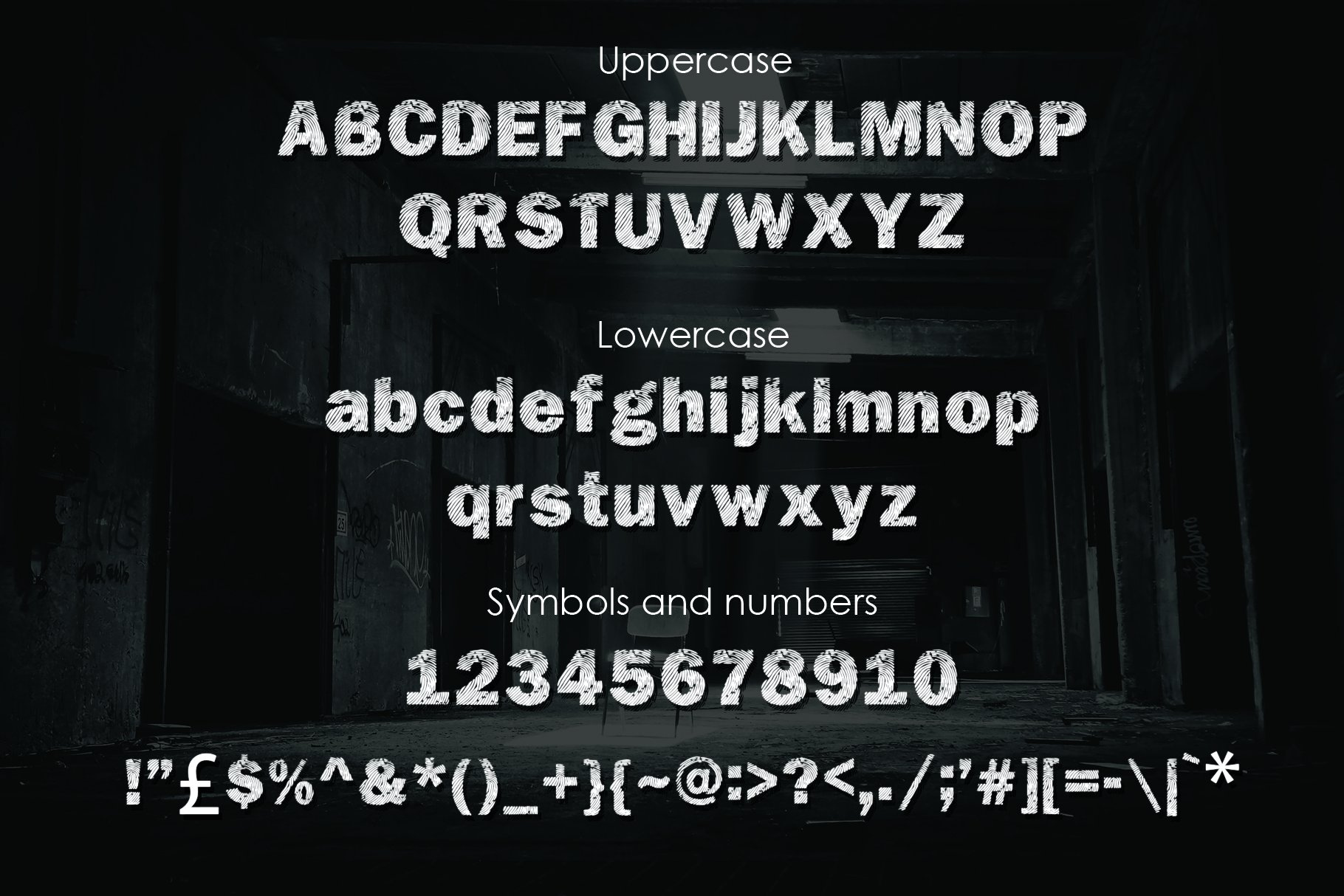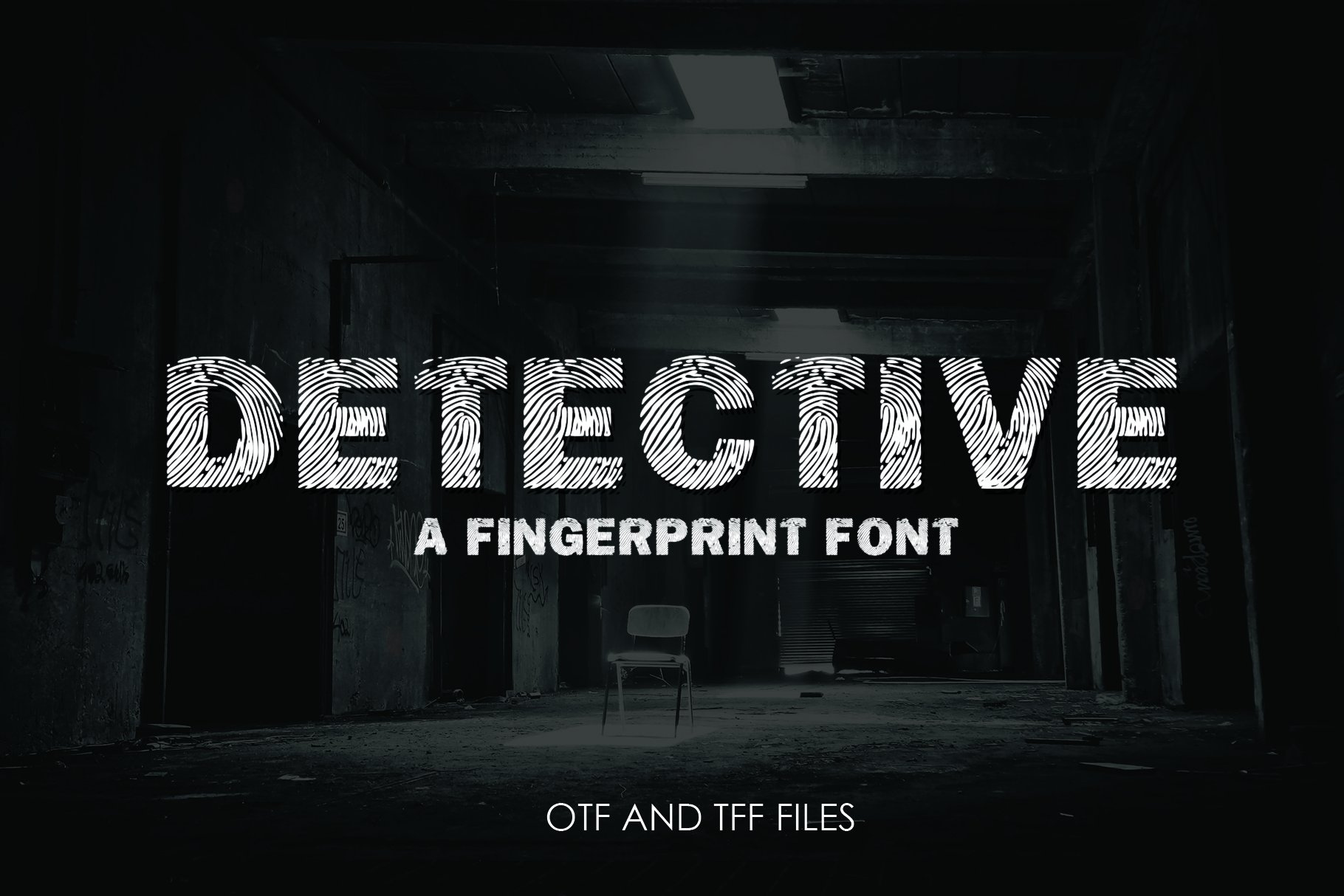
DETECTIVE Font
DETECTIVE Font is perfectly suited for mystery novel covers, crime thriller titles, noir film posters, detective agency branding, investigative journalism layouts, mystery game interfaces, suspense movie credits, police procedural graphics, and enigmatic marketing campaigns.
What makes DETECTIVE Font so exciting is its compelling mysterious atmosphere and investigative authority that instantly creates suspense and intrigue while capturing the essence of classic detective fiction and modern crime storytelling through every carefully crafted letterform. This captivating typeface embodies the shadowy world of investigation with its distinctive character shapes and authoritative weight that evoke images of dimly lit detective offices and thrilling criminal pursuits. The font's commanding presence and mysterious styling create an immediate sense of drama and professional competence that resonates with audiences who appreciate crime fiction, mystery stories, and investigative excellence. DETECTIVE Font stands out through its ability to convey authority, mystery, and investigative credibility, making it perfect for projects that need to establish dramatic tension while connecting with audiences who are drawn to crime stories and detective narratives.
The DETECTIVE Font family includes Regular, Medium, Bold, and Black weights, each maintaining the font's distinctive investigative character while providing design flexibility for various mysterious applications. The family also features stylistic alternates and crime-themed elements that enhance the font's dramatic appeal and provide comprehensive solutions for suspenseful design projects requiring authoritative presence.
The technical excellence of DETECTIVE Font includes a comprehensive character set with uppercase and lowercase letters, numerals, punctuation marks, and investigative symbols that maintain the font's authoritative character. The font has been optimized for both digital and print applications, ensuring consistent performance while preserving the dramatic details that give it its distinctive mysterious character and professional appeal.
Whether you're designing crime entertainment materials, creating investigative branding, developing mystery marketing campaigns, or crafting designs that need to convey detective authority and suspenseful atmosphere, DETECTIVE Font delivers the perfect combination of investigative authenticity and dramatic impact that makes your projects compelling and memorable for audiences seeking thrilling mystery experiences and professional investigative excellence.